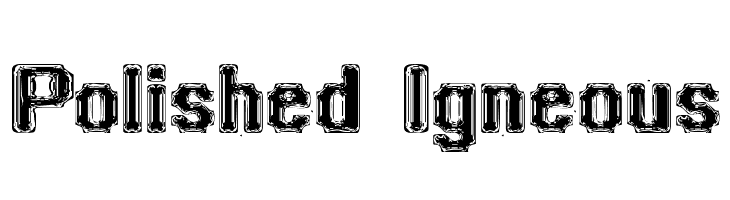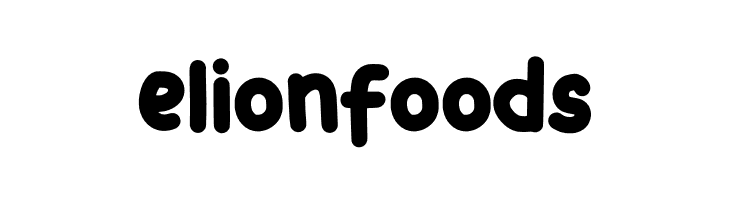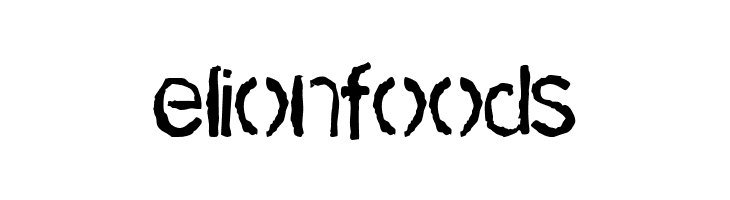
( Andrew Lander - formerly at home.earthlink.net/~landerfam/fonts.html )
A bold, textured font with a rugged, stone-like appearance.
A modern, geometric font with clean lines and rounded edges.
A modern, geometric font with a sleek and futuristic style.
( James Fordyce )
A bold, blackletter font with intricate, angular letterforms and a gothic flair.
( Fonts by Muhammad Afif )
A bold, playful font with rounded edges and a friendly appearance.
( Cosmic Graphics - formerly at www.ne.jp/asahi/cosmicgraphics/homepage/contents.html )
A bold, edgy font with jagged, brush-like strokes and a rebellious style.